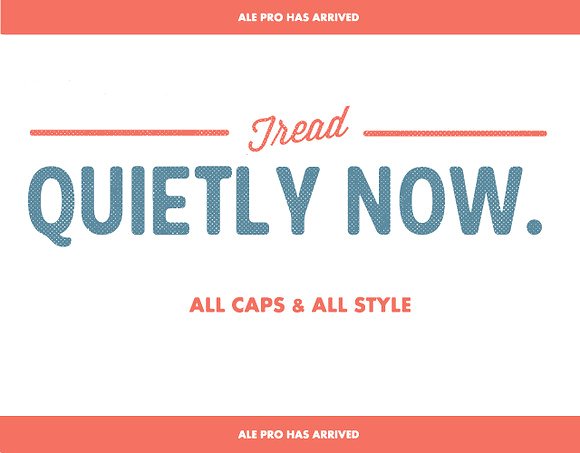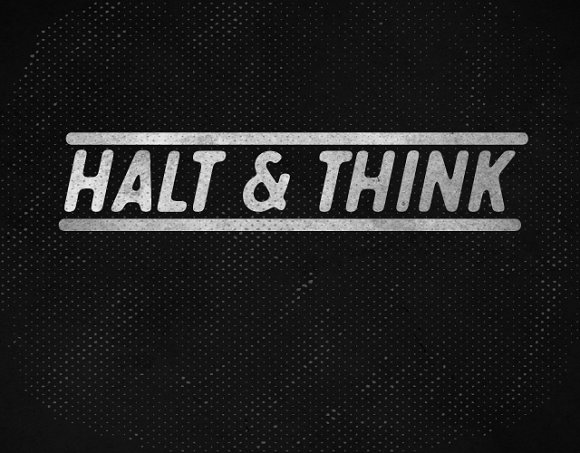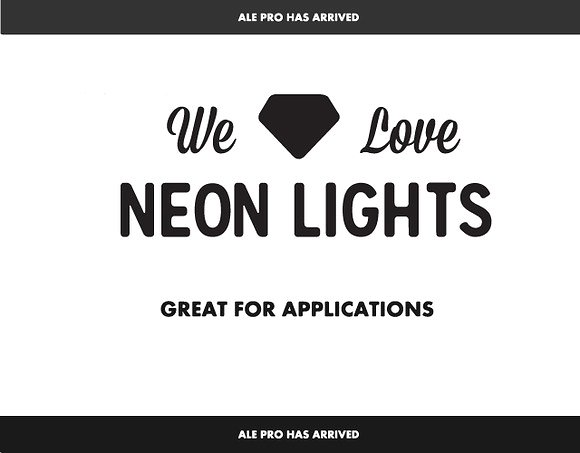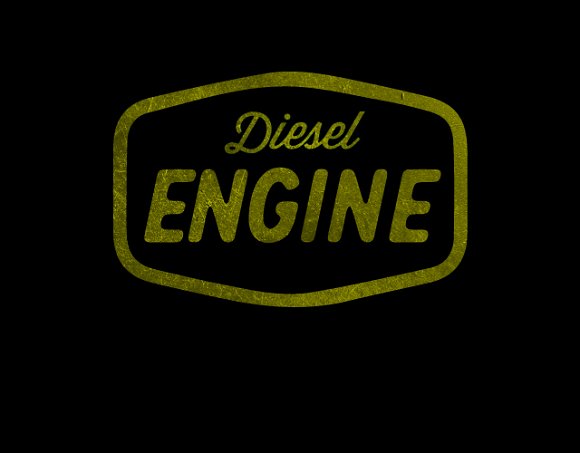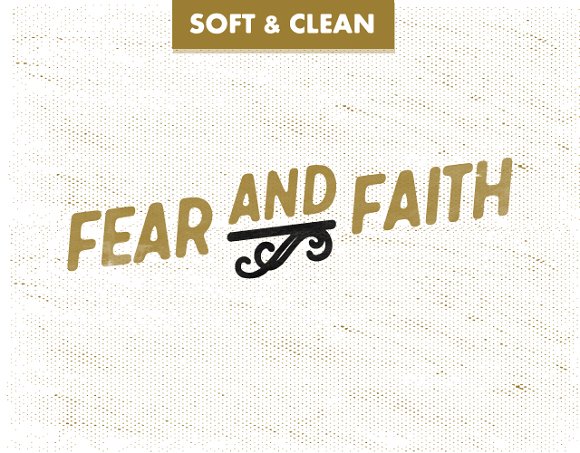
Ale Regular Font: The Perfect Hand-Drawn Look for Designers and Crafters
Are you tired of using the same old fonts in your designs? Do you want to add a personal touch to your projects? Look no further than Ale Regular Font, a unique and versatile font that’s perfect for designers and crafters alike. In this article, we’ll take a closer look at Ale Regular Font, its features, and how you can use it to elevate your designs.
What is Ale Regular Font?
Ale Regular Font is an all-caps font that was originally created for personal use. However, after some deliberation, the creator decided to share it with the world, knowing that others would find it useful for their own projects. As the name suggests, Ale Regular Font is a regular font that’s designed to mimic the look of hand-drawn lettering. Its small imperfections make it perfect for adding a touch of realism to your designs.
The Inspiration Behind Ale Regular Font
Ale Regular Font is a throwback to custom, off-the-cuff lettering. The creator wanted to capture the essence of hand-drawn lettering, with all its imperfections and quirks. The result is a font that looks like it was drawn by hand, with a unique character that’s hard to find in digital fonts. Whether you’re a designer, crafter, or DIY enthusiast, Ale Regular Font is the perfect choice for adding a personal touch to your projects.
Features of Ale Regular Font
So, what makes Ale Regular Font so special? Here are some of its key features:
- All-caps design: Ale Regular Font is an all-caps font, making it perfect for headings, titles, and other applications where you want to make a statement.
- Hand-drawn look: The font’s small imperfections give it a hand-drawn look that’s perfect for adding a touch of realism to your designs.
- Versatile: Ale Regular Font is versatile and can be used for a wide range of projects, from designs and crafts to DIY projects and more.
How to Use Ale Regular Font
So, how can you use Ale Regular Font in your designs? Here are some ideas:
- Signs and posters: Ale Regular Font is perfect for creating eye-catching signs and posters. Its bold, all-caps design makes it easy to read from a distance.
- Branding and packaging: Add a personal touch to your branding and packaging with Ale Regular Font. Its unique character makes it perfect for creating custom labels and packaging.
- DIY projects: Ale Regular Font is also great for DIY projects, such as crafting, woodworking, and more. Use it to add a personal touch to your projects.
- Digital designs: Ale Regular Font can also be used in digital designs, such as social media graphics, blog posts, and more.
Adding Texture to Ale Regular Font
One of the best things about Ale Regular Font is how well it takes to texture. Adding a texture to the font can give it an even more realistic, hand-drawn look. Here are some tips for adding texture to Ale Regular Font:
- Use a texture overlay: One of the easiest ways to add texture to Ale Regular Font is to use a texture overlay. You can find texture overlays online or create your own using a texture or image.
- Experiment with different textures: Don’t be afraid to experiment with different textures to find the one that works best for your design. You can try using paper textures, wood textures, or even fabric textures.
- Adjust the texture settings: Once you’ve added a texture to Ale Regular Font, adjust the texture settings to get the look you want. You can adjust the opacity, scale, and other settings to get the perfect look.
| Font Name | Ale Regular Font |
| Author | Noah Kinard |
Ale Regular Font is a unique and versatile font that’s perfect for designers and crafters alike. Its hand-drawn look and small imperfections make it perfect for adding a personal touch to your projects. Whether you’re creating signs, posters, branding, or DIY projects, Ale Regular Font is a great choice. So why not give it a try and see how it can elevate your designs?